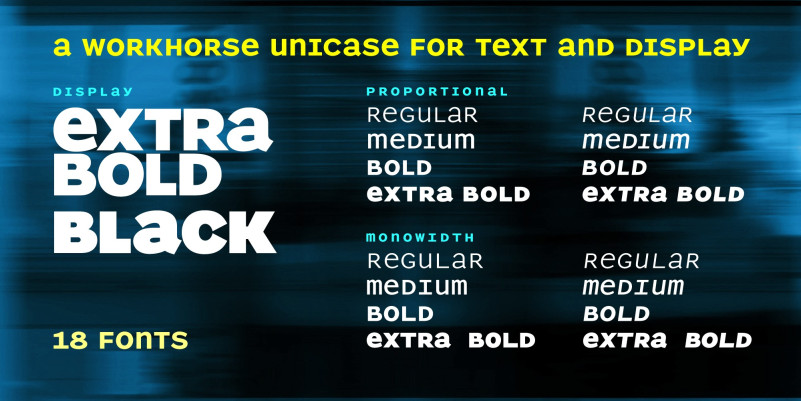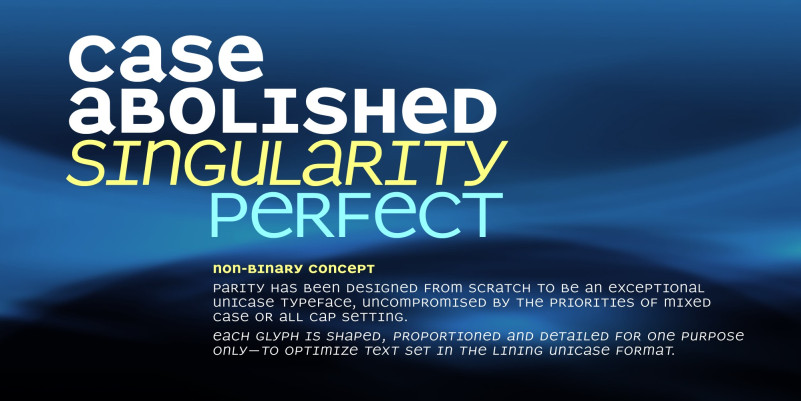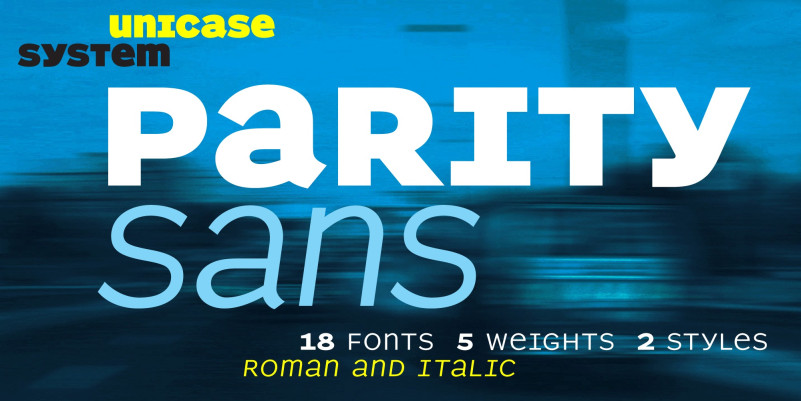
Parity Sans Font
Parity Sans Font is a display sans font family designed by Nick Shinn, . This typeface has eighteen styles and was published by Shinntype.
The Parity concept takes the minimalist unicase alphabet and expands it in another dimension, that of the megafamily encompassing a variety of weights, optical sizes and styles (roman/italic, serif/sans, proportional/monowidth)—of benefit whether fine tuning a single, quite specific font for the task at hand, or harmoniously combining several in the hierarchy of a multi-formatted page layout.